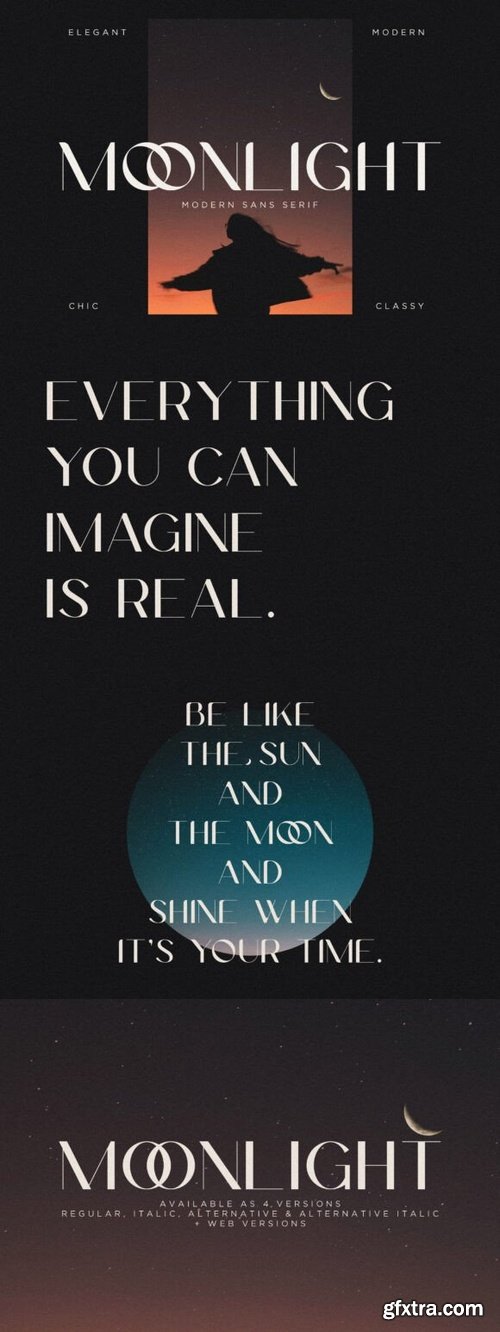
Moonlight Font
- Basking in the glowing sophistication of Moonlight, this font embodies the elegance of a starlit night. Its modern and chic aesthetic breathes a distinct and classy charm into any design context. Moonlight’s simplicity allows it to radiate a unique style uncomplicated by superfluous decoration. Boasting standard ligatures that provide added typographic finesse, it’s a versatile font compatible with numerous languages around the world. The palette is diversified with Moonlight’s regular and alternative versions, giving you a variety of choices to illuminate your design canvas.